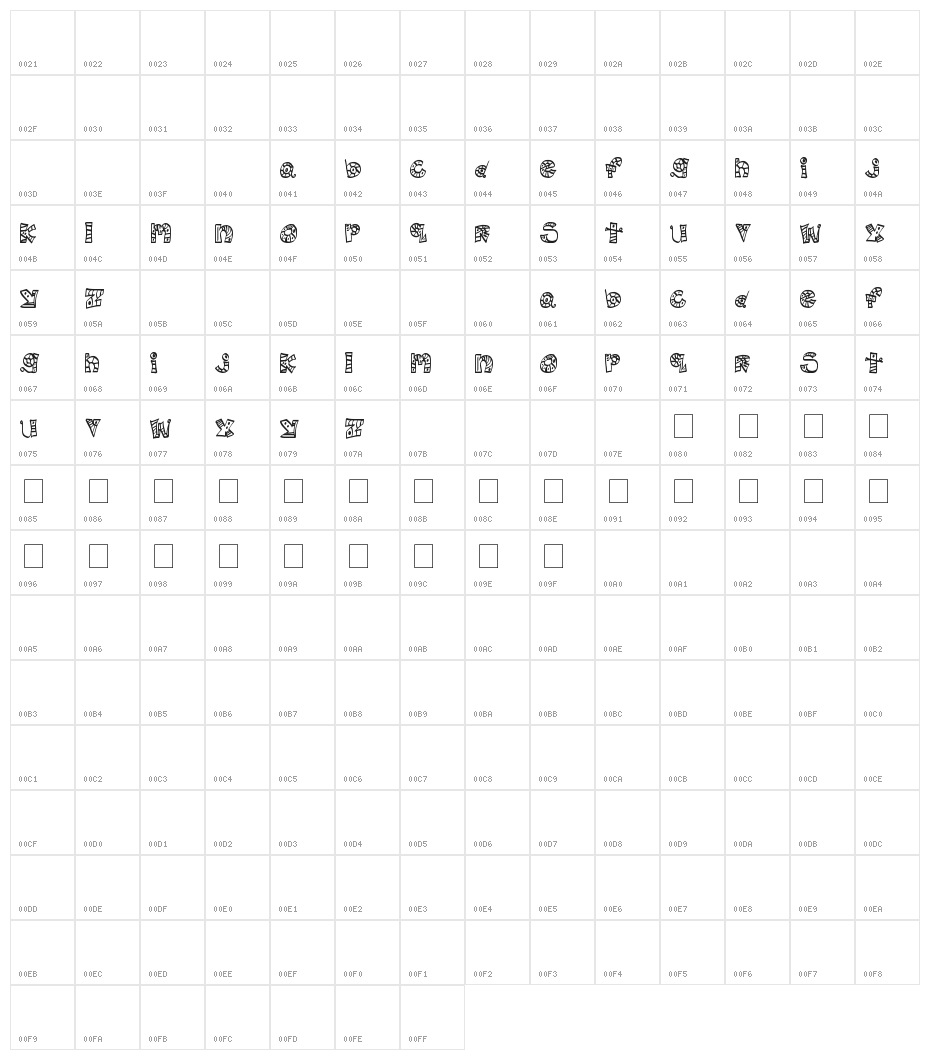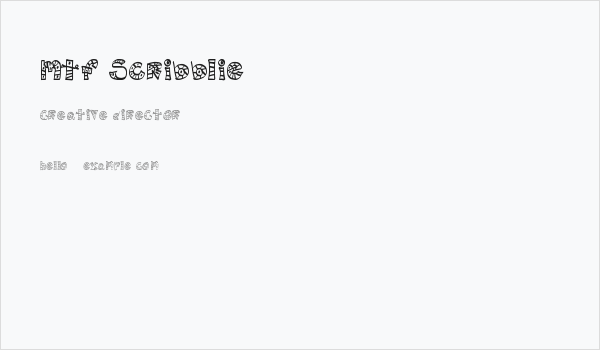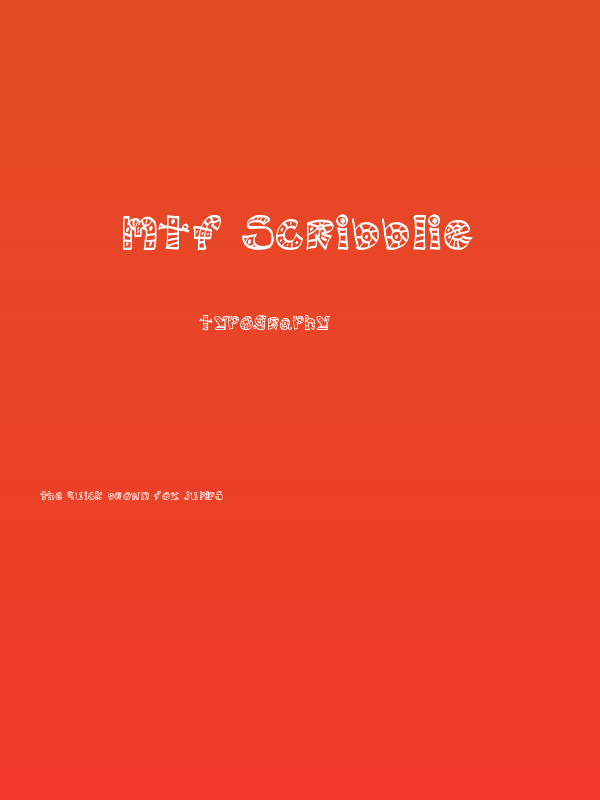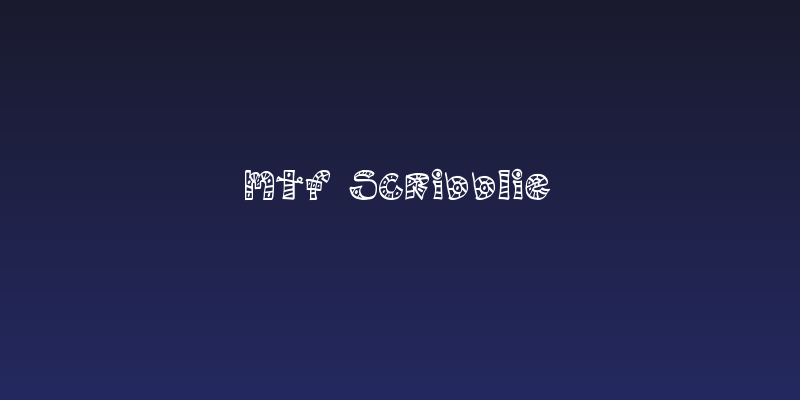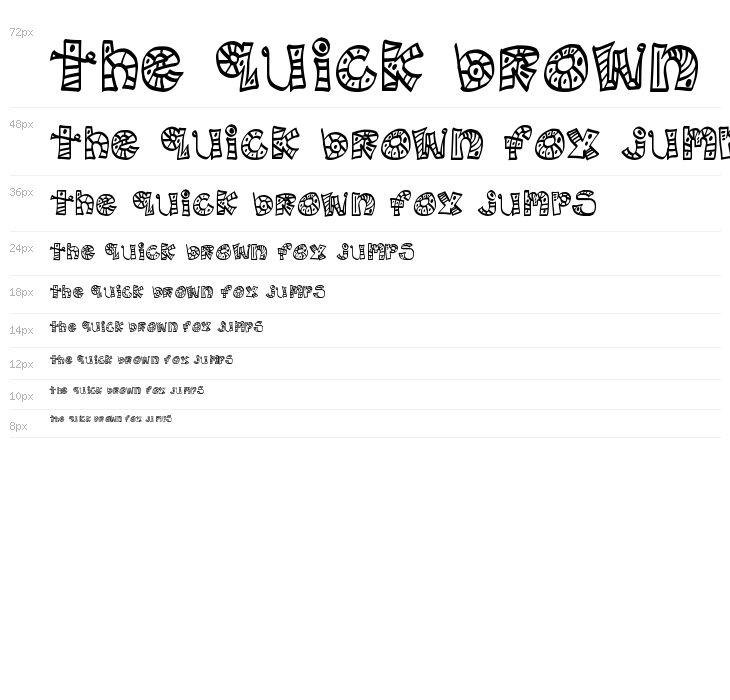
MTF Scribblie Font
MTF Scribblie Description
This playful and whimsical font features a hand-drawn style with intricate patterns and doodles within each character. The letters are bold and decorative, with a unique charm that adds a sense of fun and creativity. The uppercase and lowercase letters maintain a consistent style, with each character showcasing its own distinct pattern, such as stripes, dots, and swirls. The font's artistic flair makes it ideal for projects that require a touch of personality and imagination.
| Overall Style | Whimsical, Artistic, Fun |
| Use Case | Headlines, Posters, Creative Projects |
| Proposed Projects | Ideal for children's book covers, playful invitations, creative posters, and artistic branding. |